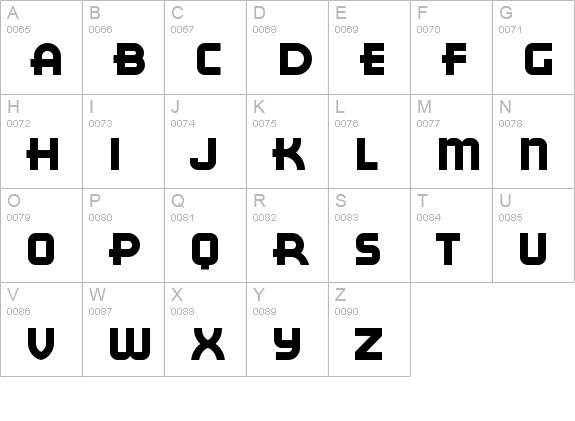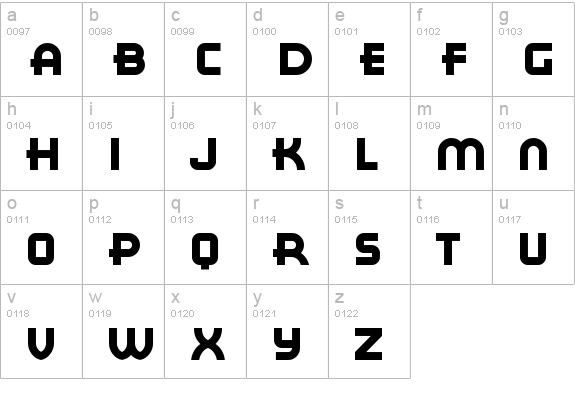
Red Circle Font Details
Introducing the mesmerizing Red Circle font, a stunning typeface that combines sleek sophistication with a bold, eye-catching appeal. With its distinct circular shapes and elegant curves, this font effortlessly captures attention and adds a touch of modernity to any design. Designed with the utmost precision and attention to detail, Red Circle font encapsulates a perfect balance between simplicity and creativity. Its smooth lines and harmonious proportions make it a versatile choice for various projects, from branding and logo designs to headlines, posters, and digital graphics. But what sets Red Circle font apart from the rest is its unique feature - it is available for free! Yes, you read that right. This incredible font can be freely downloaded at FontsMarket.com, making it easily accessible to all design enthusiasts, professionals, and beginners alike. Say goodbye to limitations and expensive font licenses, because Red Circle font allows you to explore your creativity without any constraints. Immerse yourself in the world of Red Circle font and watch your designs come to life with its modern and striking aesthetic. Whether you're aiming for a minimalist look or a bold statement, this font has the versatility to adapt to your vision effortlessly. So why wait? Unlock the potential of your designs and elevate them to new heights with the captivating Red Circle font. Download it for free at FontsMarket.com and let your creativity soar.